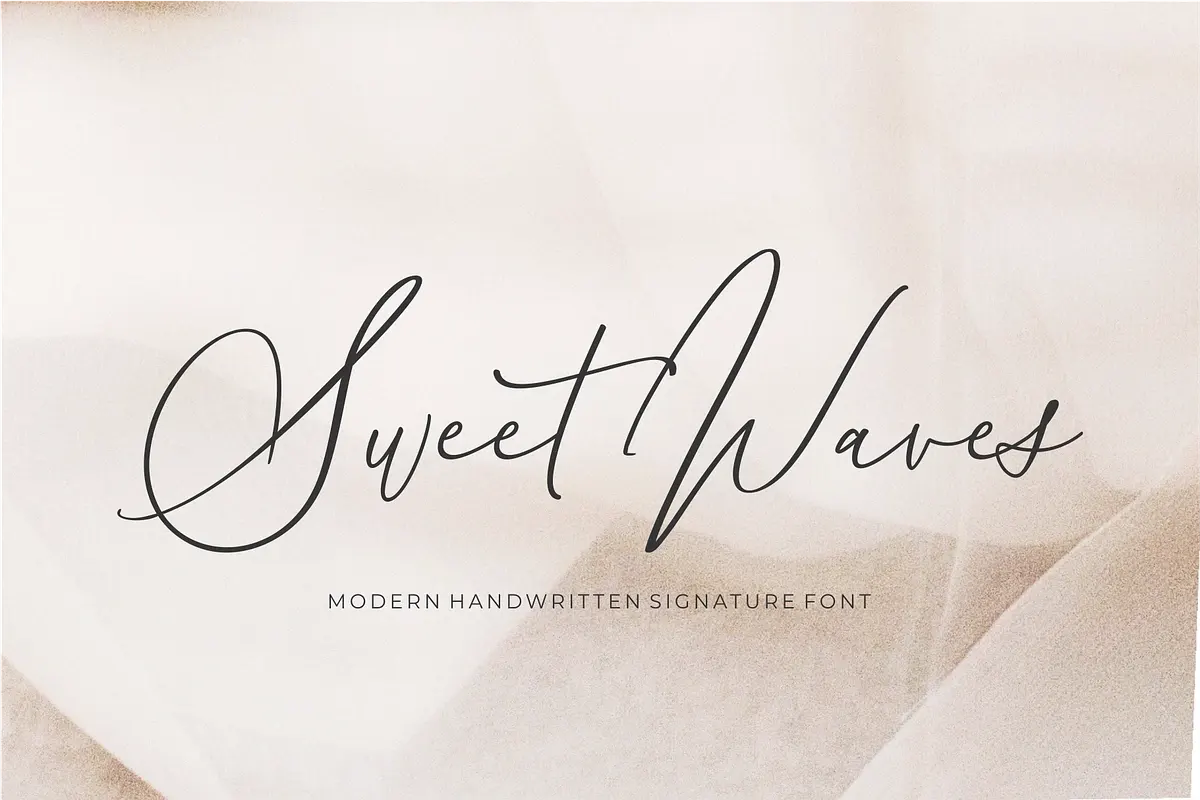
You must purchase this font for commercial use. However, you can download Sweet Waves – Luxury Handwritten Font Free Download for testing purposes. Sweet Waves is an elegant, luxury handwritten script font that exudes sophistication and charm. Perfect for high-end branding, wedding invitations, personal stationery, logos, and luxury product packaging, this font brings a refined, artistic touch to any design.
With its smooth, flowing lines and delicate curves, Sweet Waves mimics the beauty of hand-lettered calligraphy, making it ideal for projects that require a personal yet polished aesthetic. Whether you are designing a chic logo, a romantic invitation, or an upscale brand identity, Sweet Waves – Luxury Handwritten Font Free Download adds a personal, luxurious feel.